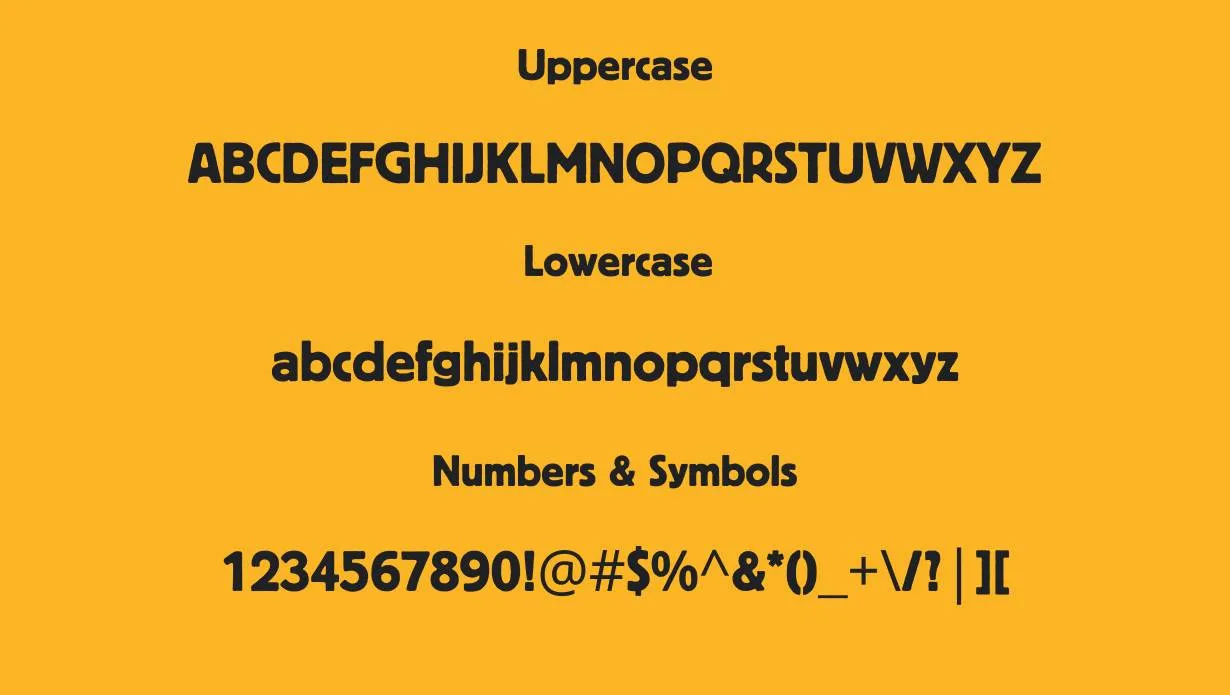
The Block Be font is a bold and impactful typeface often seen in posters, headlines, or any project requiring attention-grabbing typography.
| Name | Block Be Font |
| Designer | Hermann Hoffmann |
| Style | Sans-serif |
Its solid and powerful appearance ensures that the text stands out prominently, making it an ideal choice for designs that need a strong and visually striking presence. This font’s bold and defined style ensures a clear and impactful visual statement.